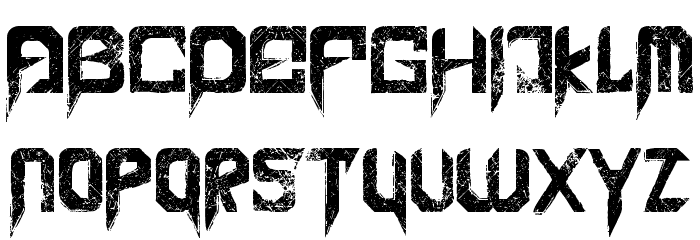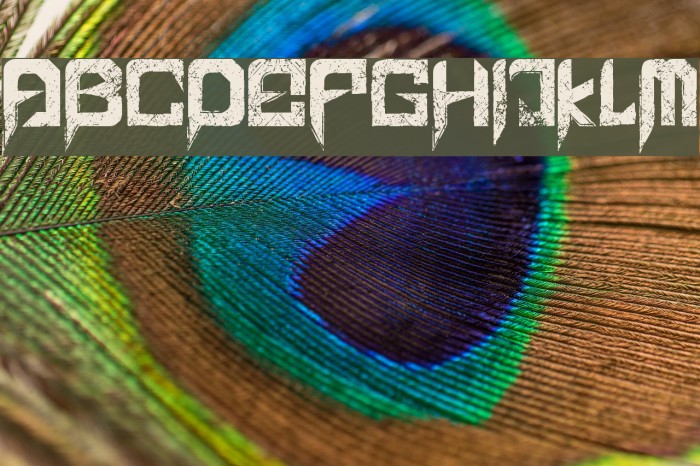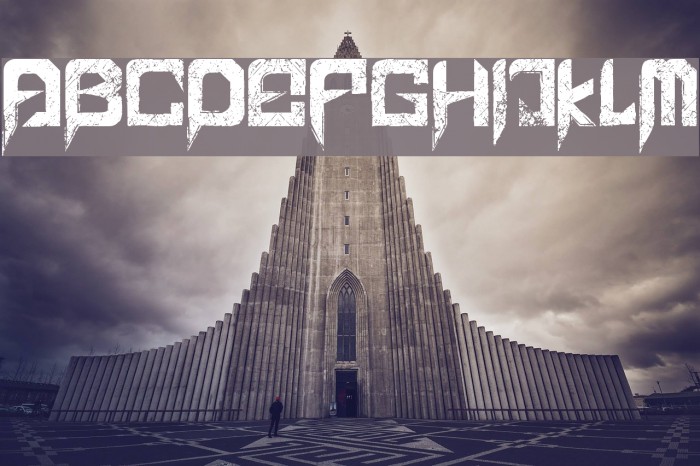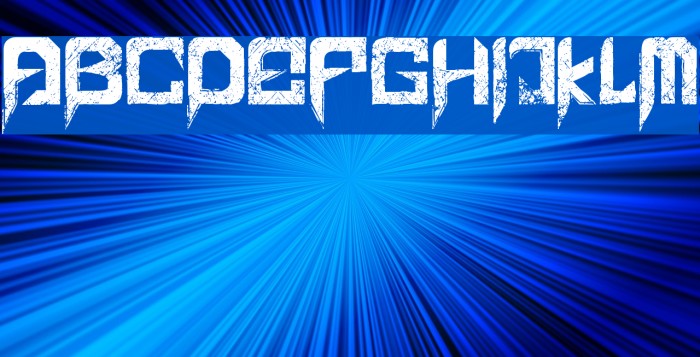
Penetration Out Grunge Font
This font features a bold, distressed style with a grunge aesthetic. The characters are angular and sharp, with a rough texture that gives them a worn, edgy appearance. The uppercase letters are particularly striking, with jagged edges and a sense of movement. This font is designed to stand out, making it ideal for projects that require a bold statement. The distressed texture adds depth and character, making it suitable for designs that aim to convey a sense of rebellion or ruggedness.
A bold, distressed grunge font with angular, sharp characters.
- Font: Penetration Out Grunge
- Proposed Projects: Ideal for music album covers, posters, streetwear branding, and edgy graphic designs.
- Overall Style: Grunge, Edgy